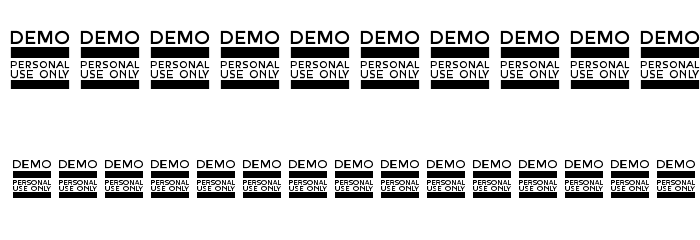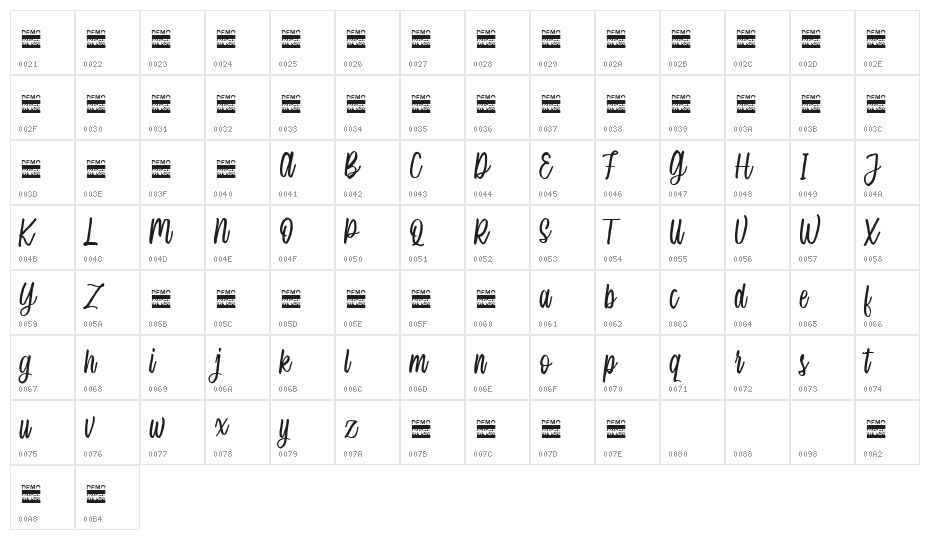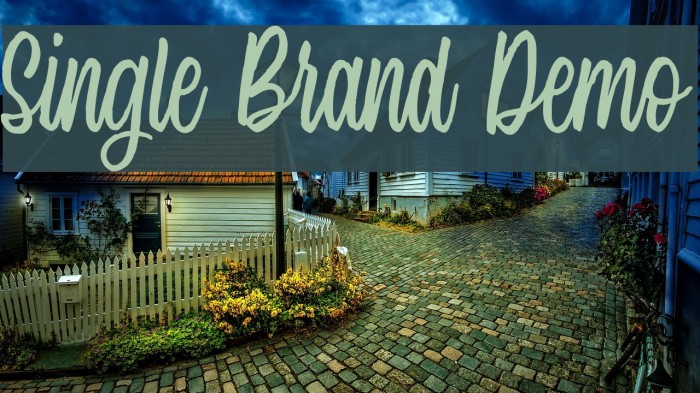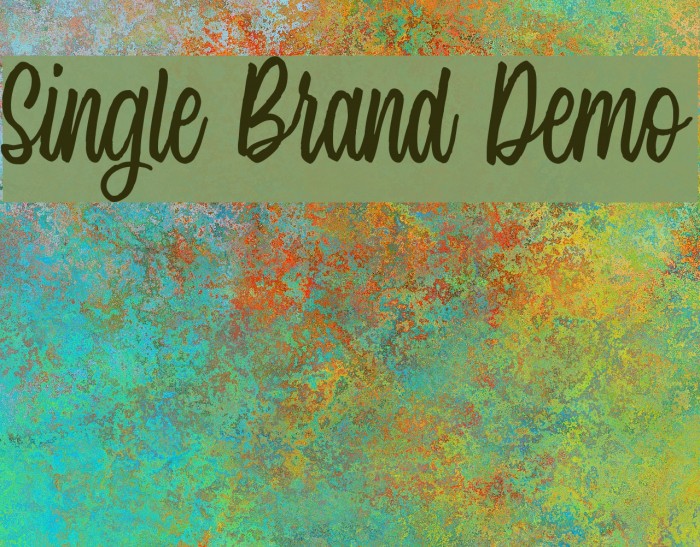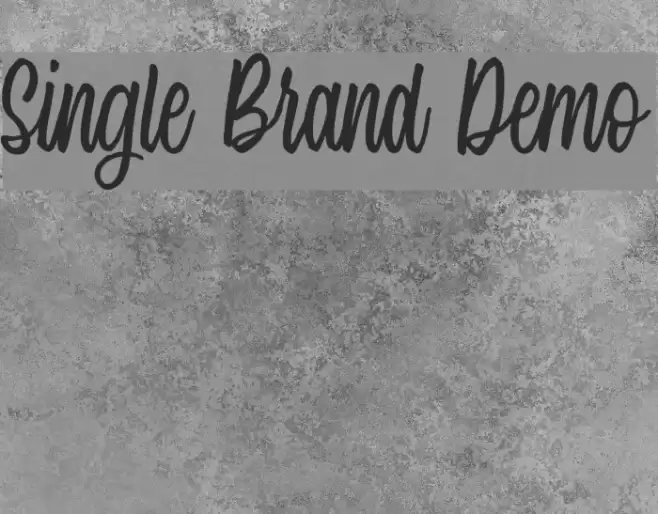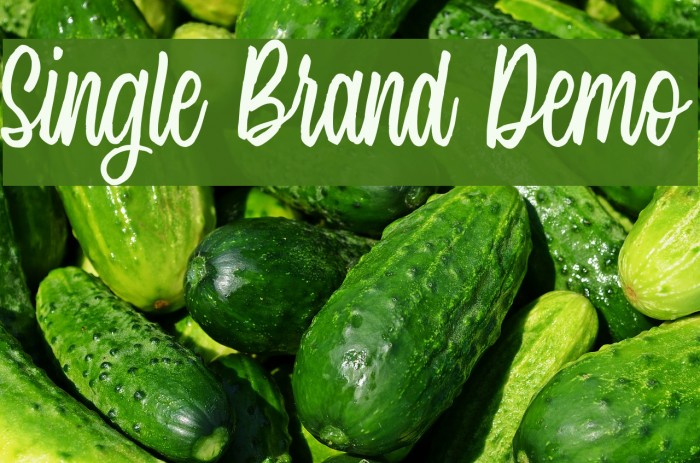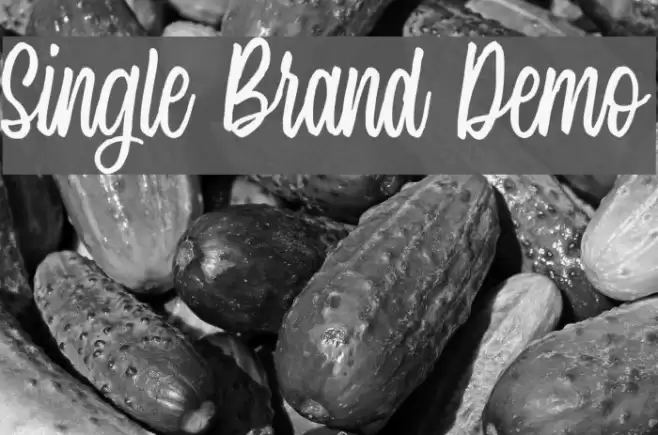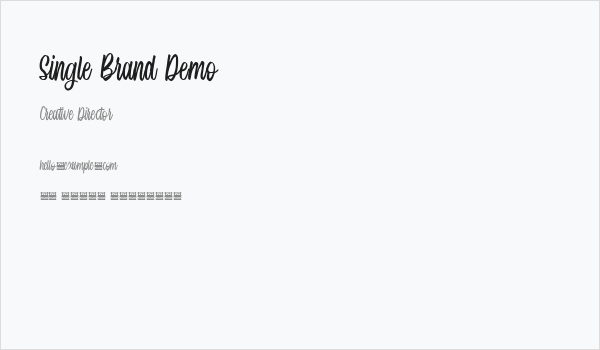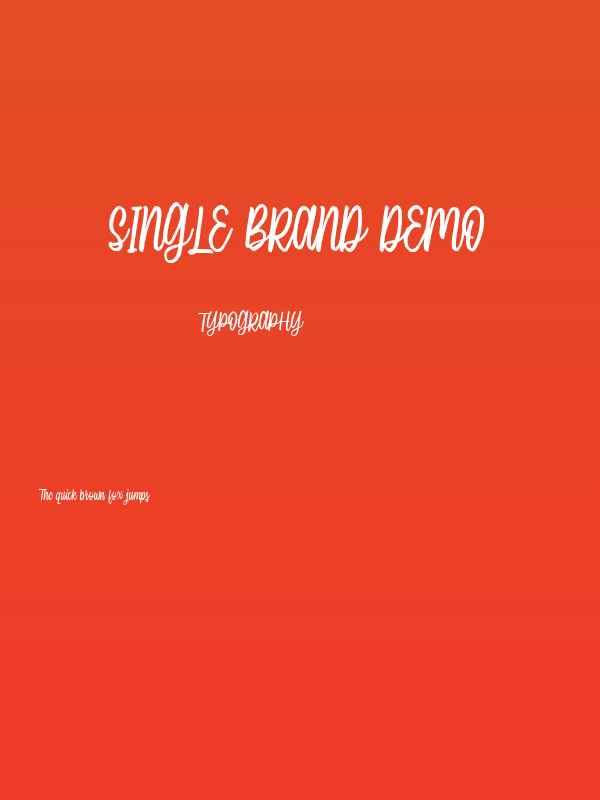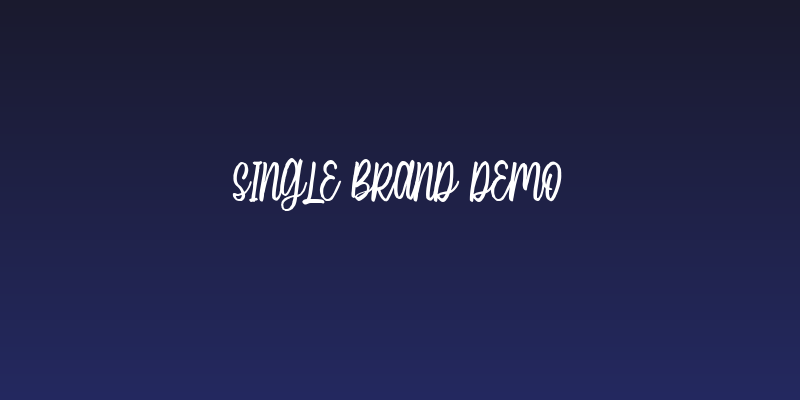
Single Brand Demo Font
Single Brand Demo Description
This font features a dynamic and fluid handwritten style, characterized by its bold and expressive strokes. The letters are interconnected with a natural flow, giving it a personal and artistic touch. The uppercase letters are slightly taller and more pronounced, while the lowercase letters maintain a consistent rhythm. The overall appearance is casual yet elegant, making it suitable for projects that require a personal or creative flair. The font's design is versatile, allowing it to be used in various contexts where a handwritten aesthetic is desired.
| Proposed Projects | Ideal for branding, invitations, greeting cards, and social media graphics. |